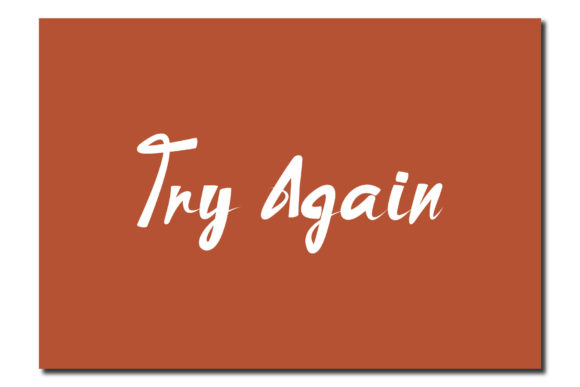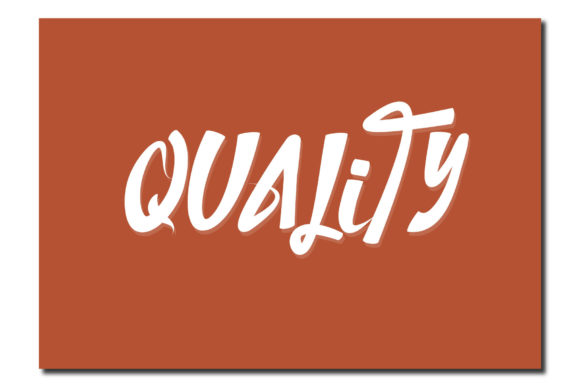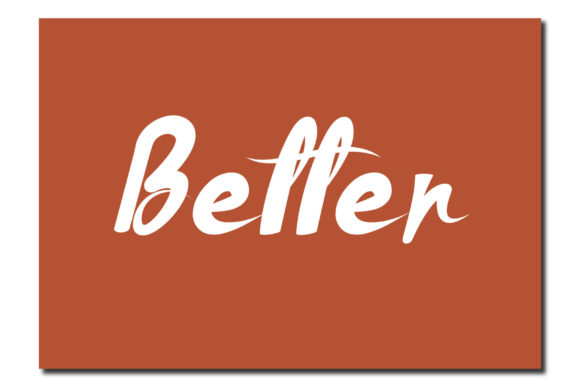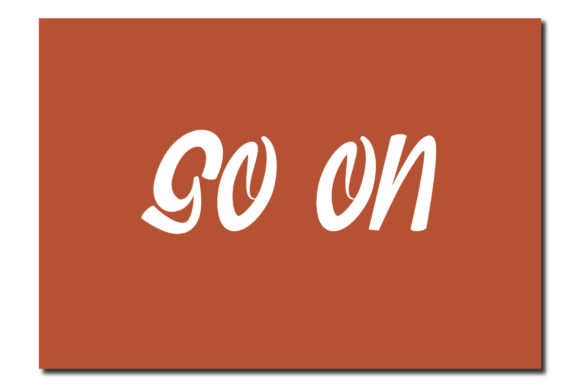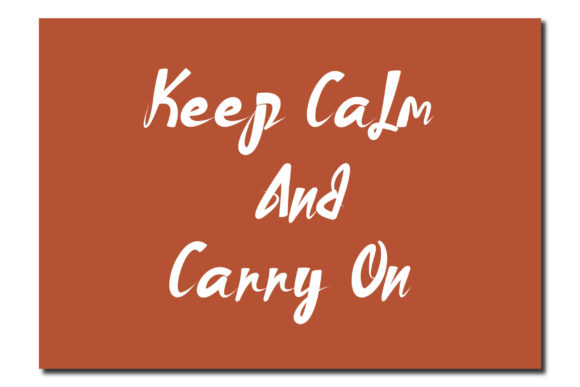
Write the Words Font
About Write the Words Font
Write the Words is a chic, refined script font that emanates sophistication and elegance. Its stylish alternates and ligatures make this font the perfect match for any project.